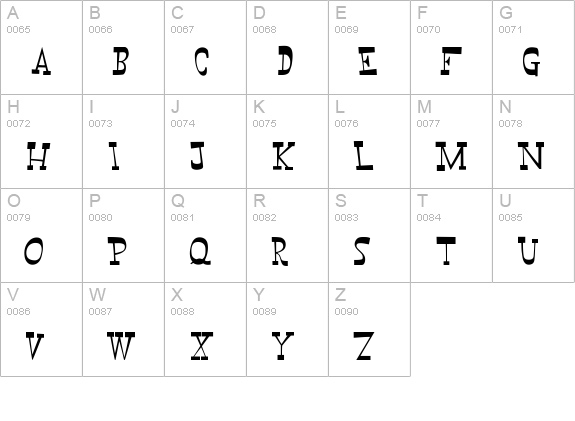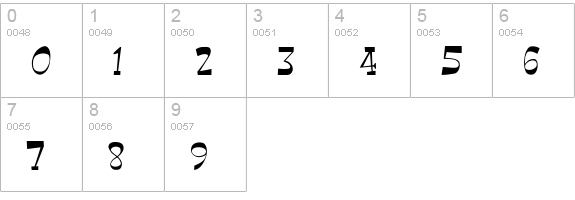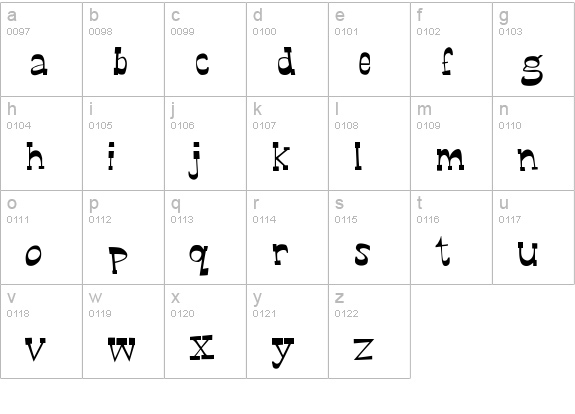
WayOutWestRegular Font Details
Introducing WayOutWestRegular, a stunning and versatile font that brings a touch of the wild west to your designs. With its unique and handcrafted letterforms, this font captures the essence of the rugged landscapes and adventurous spirit of the great American frontier. Designed with meticulous attention to detail, WayOutWestRegular is perfect for any project that requires a touch of rustic charm. Whether you are creating signage for a western-themed event, designing a logo for a cowboy-inspired brand, or crafting invitations for a country-style wedding, this font will add a sense of authenticity and character to your design. Featuring a balanced combination of thick and thin strokes, WayOutWestRegular offers excellent legibility while maintaining a distinctive and eye-catching look. Its versatile nature allows it to work seamlessly on a variety of mediums, from print materials to digital platforms. And the best part? WayOutWestRegular is available for free download at FontsMarket.com. That's right, you can easily access this incredible font without any cost. Thanks to its generous availability, you can now incorporate the charm of the wild west into your designs without breaking the bank. So why wait? Download WayOutWestRegular today and unleash your creativity with this captivating font. Whether you're a seasoned designer or just starting out, this font is sure to elevate your projects to new heights. Don't miss out on this opportunity to add a touch of western flair to your designs - get WayOutWestRegular now, and let your creativity run wild.